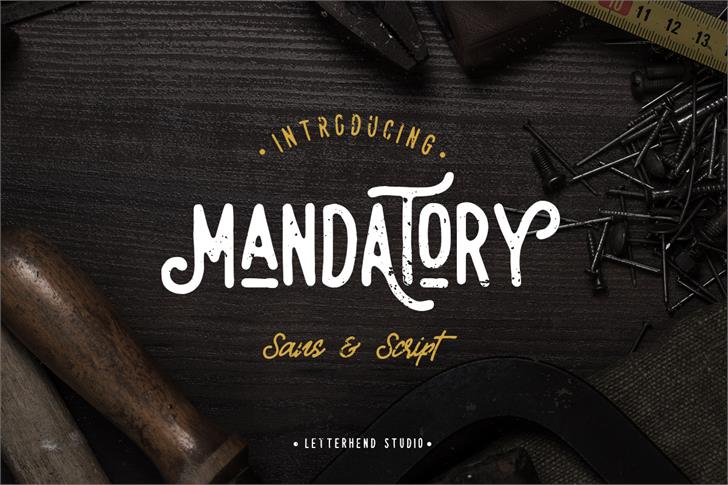
Free Mandatory Script Font
Download and enjoy this free mandatory script font. Cool typeface to showcase your designs in a modern way. Go give some love to Letterhend Studio for creating this top-notch free typeface. Amaze your fellow designers and create stunning designs with this fancy font.